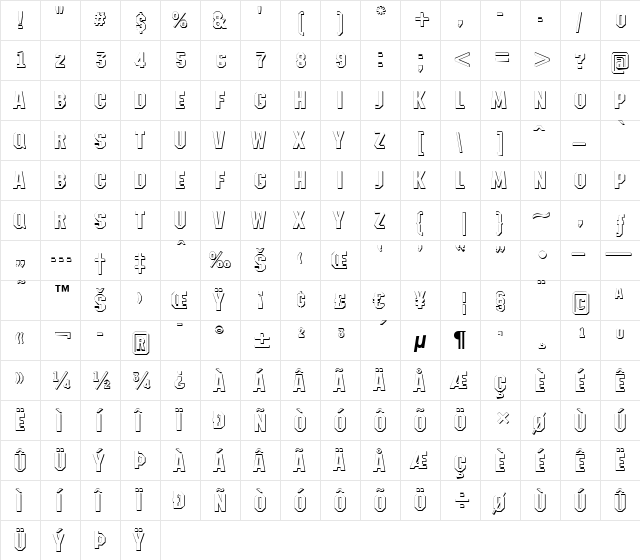
a_Meccano3Dxtr Regular
| Designer | M.Slutsker & W.Chufarofsky |
Design Context for a_Meccano3Dxtr Typeface
a_Meccano3Dxtr is a composed and adaptable typeface that performs quietly and consistently across a wide range of design contexts.